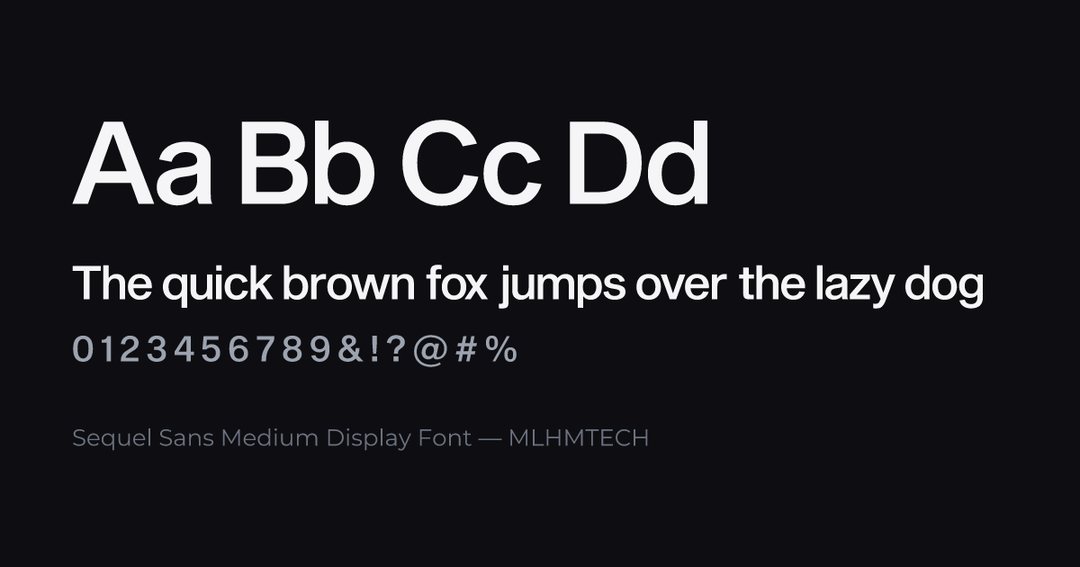
Sequel Sans Medium Display Font
Sequel Sans Medium Display is a versatile sans-serif font with a modern, clean aesthetic. Ideal for headlines, logos, and branding projects.
Sequel Sans Medium Display is a contemporary sans-serif typeface that strikes a balance between geometric precision and humanist warmth. Its medium weight offers excellent legibility at display sizes while maintaining a friendly, approachable character. The font includes a comprehensive set of glyphs, supporting multiple languages and special characters, making it a reliable choice for international projects.
This font is part of the Sequel Sans family, known for its clean lines and subtle curves. The Medium Display cut is specifically optimized for large-scale use, such as posters, billboards, and web headers, where its details shine. Its neutral yet distinctive personality allows it to pair well with serif fonts for contrast or stand alone for a minimalist look.